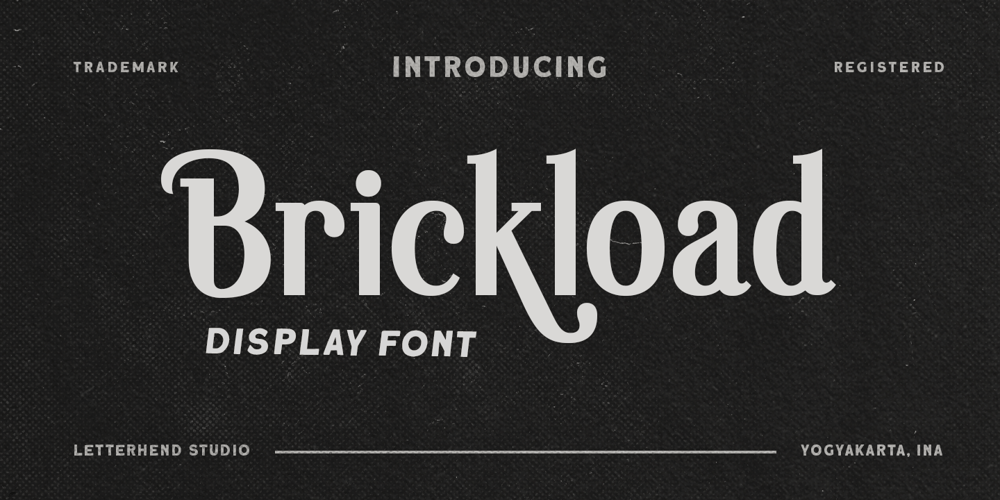
Brickload
Brickload font
Brickload Font Family was designed by Hendry Juanda and published by Letterhend. Brickload contains 2 styles and family package options. Introducing, Brickload- a display serif font. The stylistic uppercase make this font event more unique and stands out. This font perfectly made to be applied especially in logo, and the other various formal forms such as invitations, labels, logos, magazines, books, greeting / wedding cards, packaging, fashion, make up, stationery, novels, labels or any type of advertising purpose.Features : Uppercase & lowercase Numbers and punctuation Alternates & Ligatures Multilingual PUA encoded